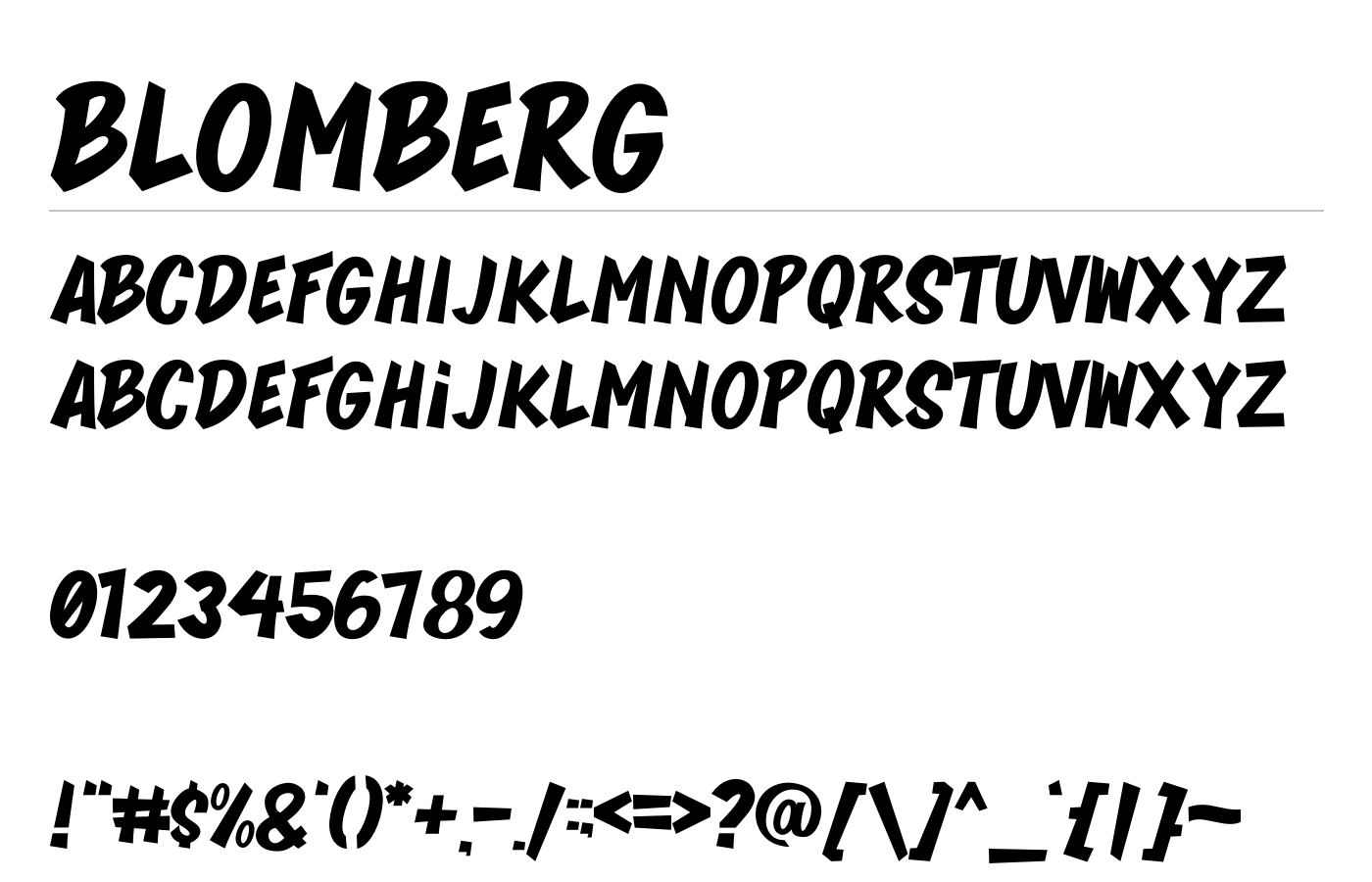
Blomberg is a bold, playful display font with a hand-drawn feel, featuring irregular, energetic letterforms and a slight italic slant that adds motion and personality. Its casual style and strong presence make it perfect for eye-catching headlines, fun branding, and creative projects where a lively, informal tone is desired. This font works well in settings that want to convey friendliness, creativity, and a sense of spontaneity.
BLOMBERG Font
About BLOMBERG Font
| Designer | Yudistira |